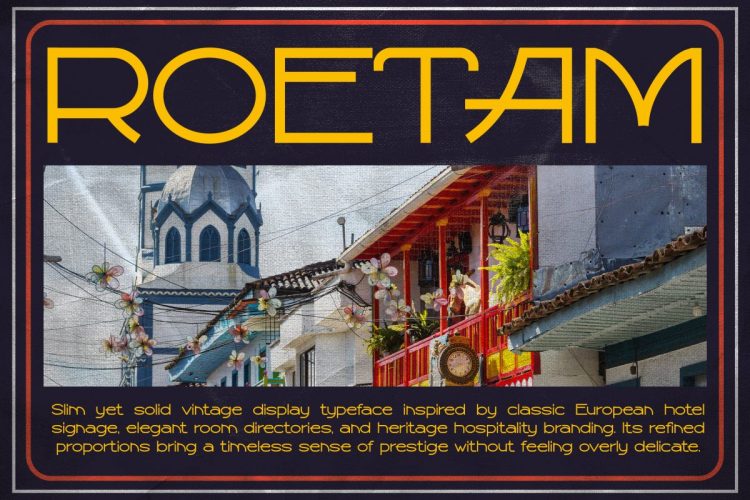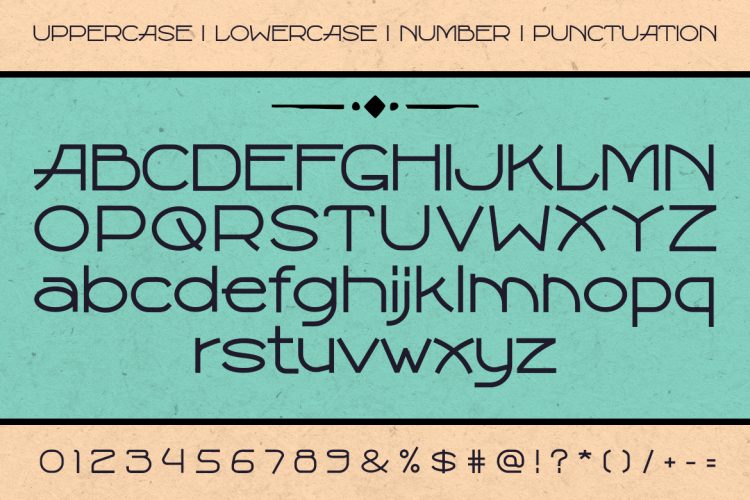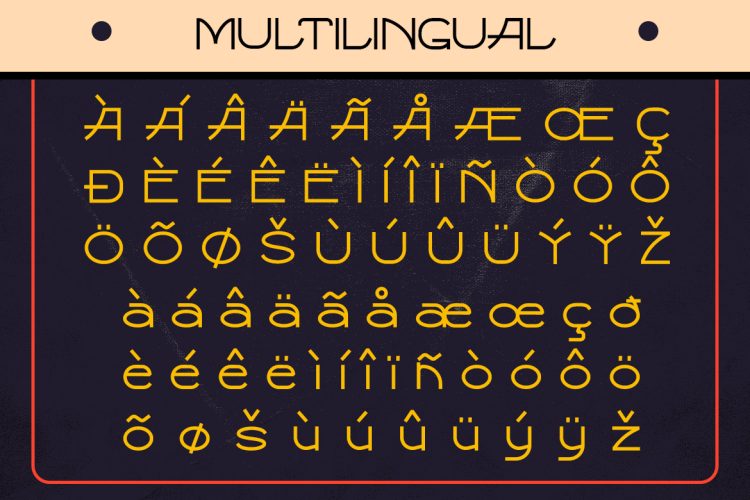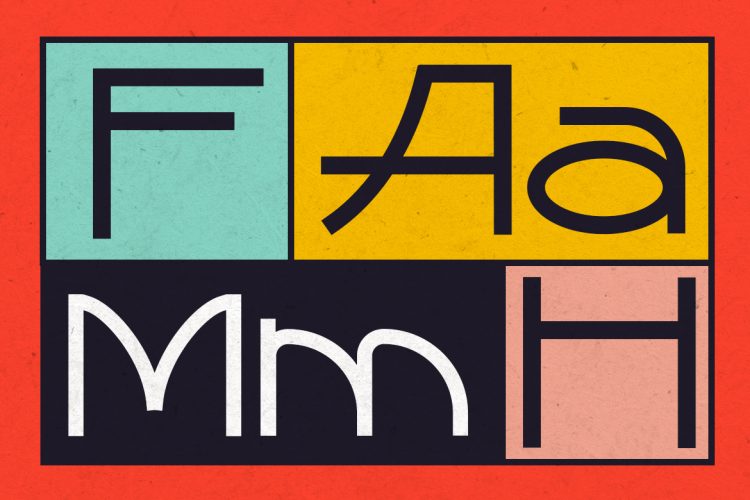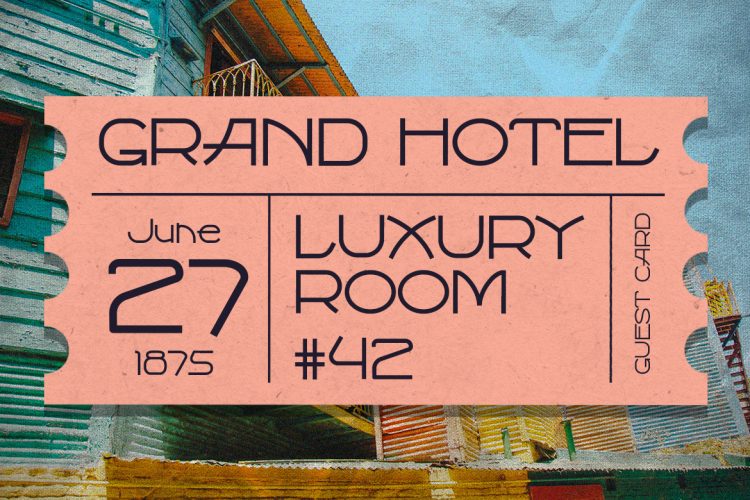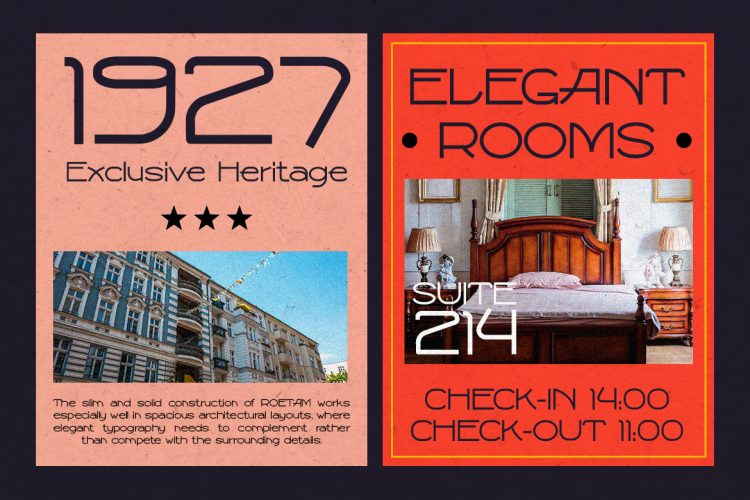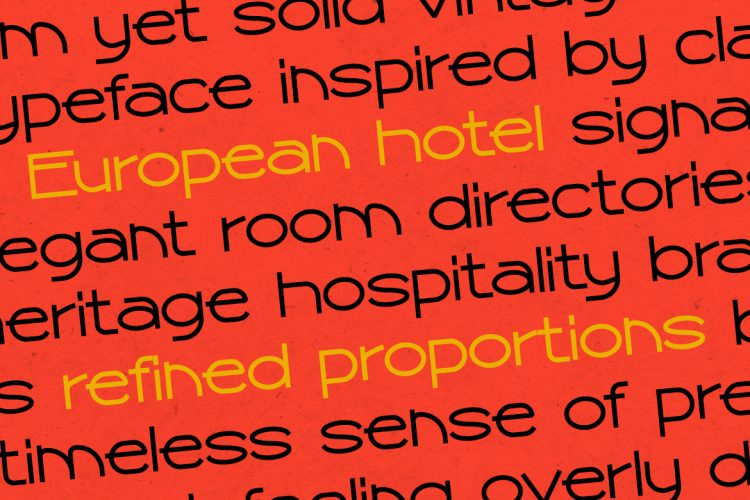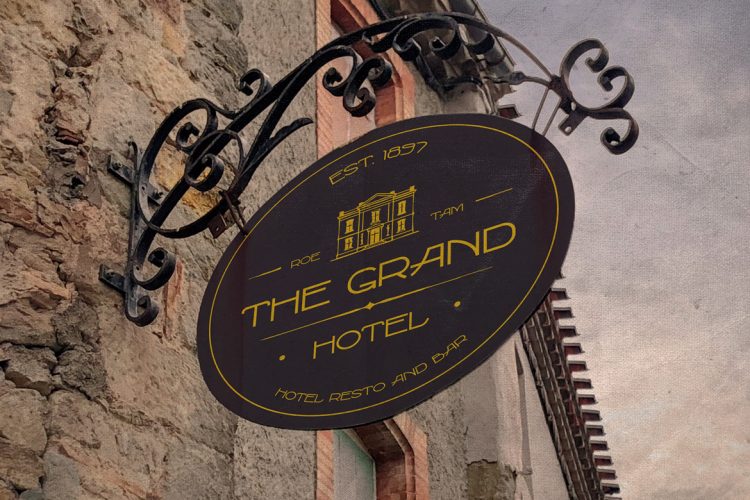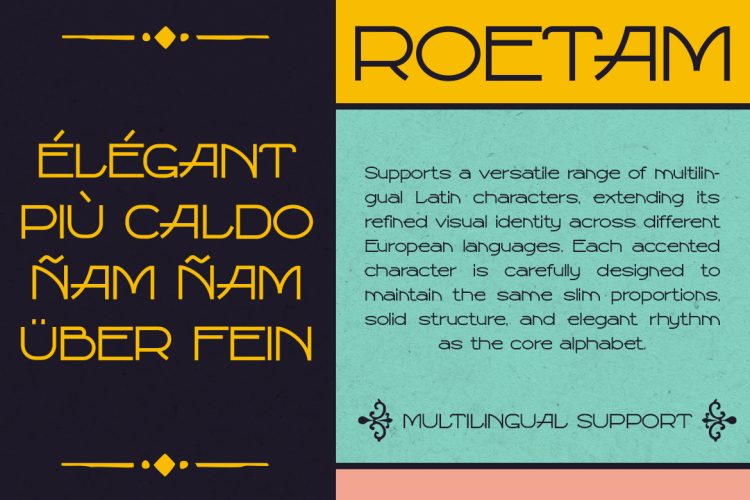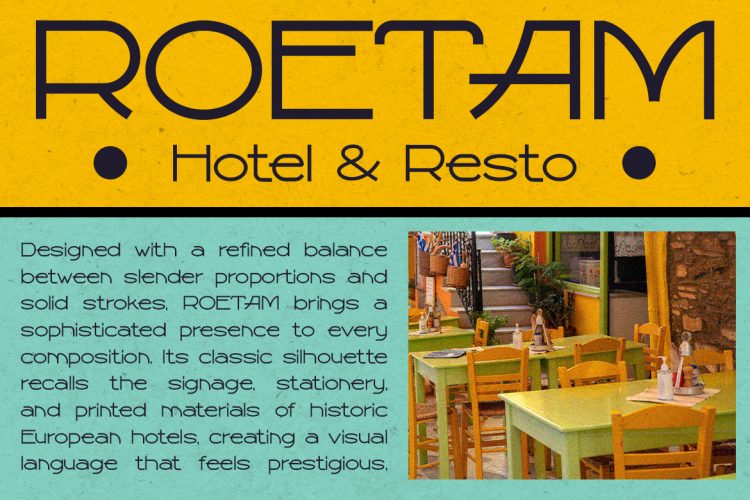
Retro Font ROETAM โ Sophisticated, Timeless & Art Deco Inspired
Retro Font ROETAM is an elegant display font that blends classic Art Deco influences with modern geometric precision, creating a refined typeface for premium branding. Not only does it feature sleek letterforms with clean architectural lines, but it also delivers a luxurious retro personality that feels both timeless and contemporary. Moreover, its balanced proportions create a sophisticated visual rhythm that enhances every headline. In addition, the minimalist structure keeps the font highly readable while preserving its vintage elegance. Furthermore, ROETAM brings a premium atmosphere to branding, editorial layouts, and hospitality projects. As a result, every design feels more exclusive and professionally crafted. Meanwhile, its decorative details add subtle character without overwhelming the composition. Additionally, with support for 67 languages, ROETAM helps brands communicate beautifully across international audiences. Therefore, it is the perfect typeface for businesses that value elegance, heritage, and modern refinement.
Retro Font ROETAM Perfect For
ROETAM is crafted for projects that require a luxurious and memorable identity. Whether you’re designing hotel branding, boutique logos, restaurant menus, premium packaging, fashion labels, editorial magazines, architecture presentations, or lifestyle campaigns, this font delivers effortless sophistication. Likewise, its retro-inspired style elevates both classic and contemporary concepts. Furthermore, the clean geometric forms create an upscale appearance. Consequently, your designs become more distinctive and visually trustworthy. At the same time, ROETAM performs beautifully across print, signage, packaging, and digital media.
Design with Timeless Elegance
If you want your brand to express sophistication, confidence, and lasting style, Retro Font ROETAM is the perfect choice. Therefore, make it part of your font collection today. Not only will it strengthen your visual identity, but it will also give every project a premium retro character that leaves a lasting impression. Ultimately, ROETAM transforms ordinary typography into elegant design with timeless appeal.